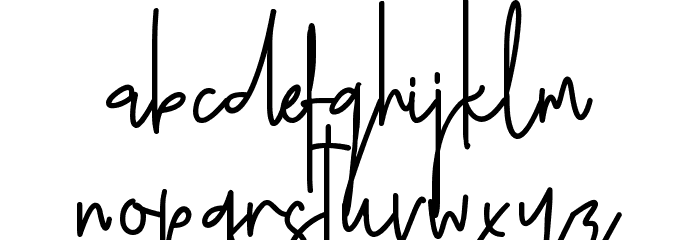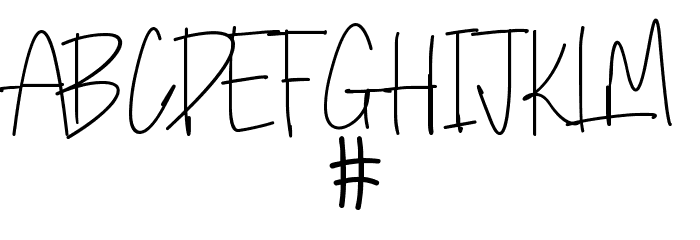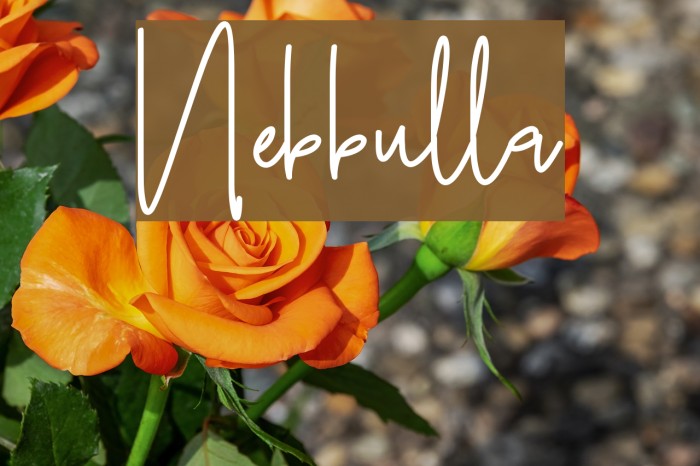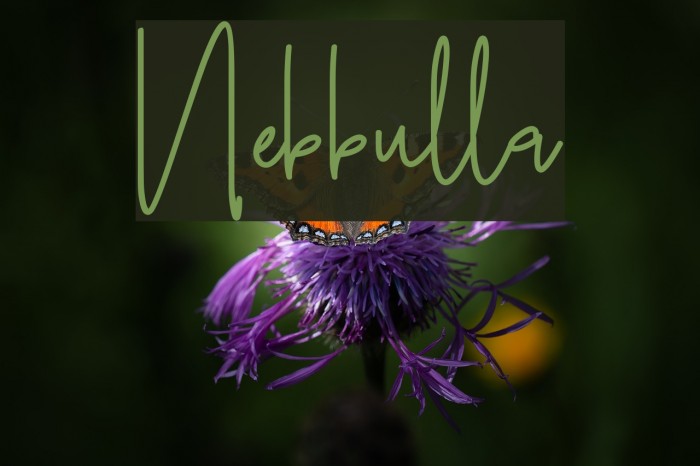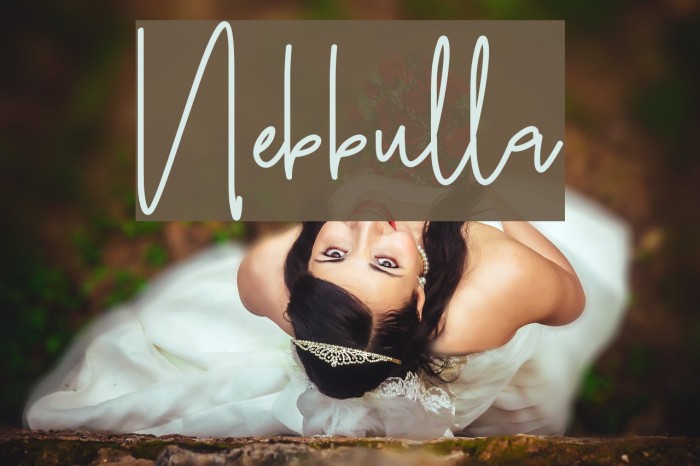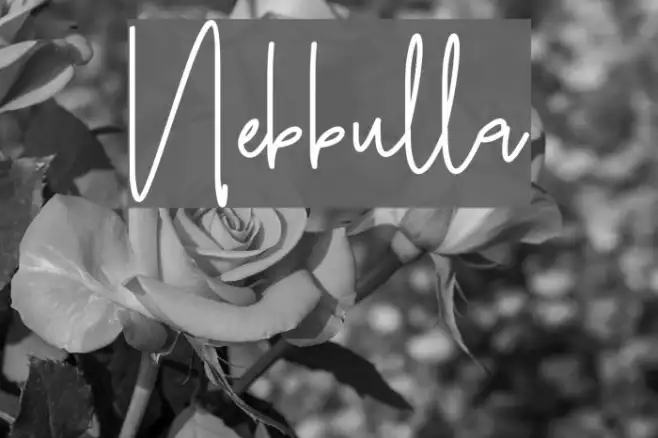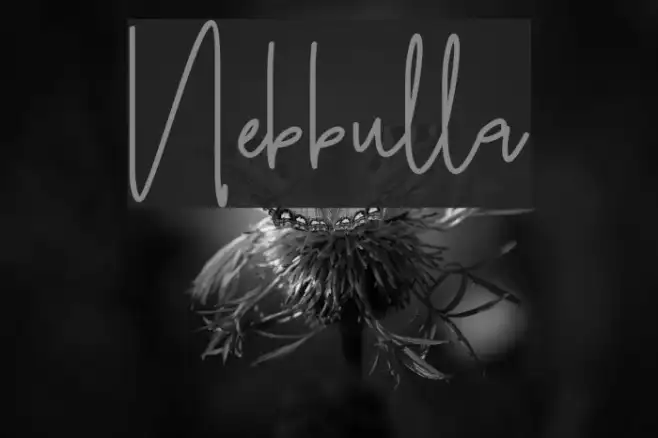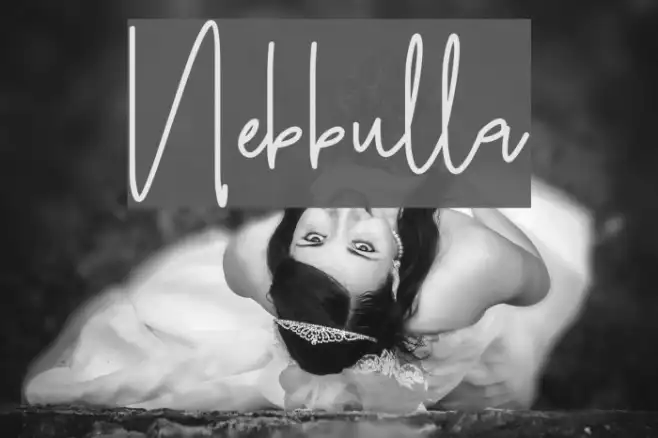
Nebbulla Font
This font features a playful and casual handwritten style, characterized by its loose and flowing strokes. The letters are tall and narrow, with a slight slant that adds to the informal and dynamic feel. The uppercase and lowercase letters are distinct, with the uppercase being more structured while the lowercase maintains a more whimsical appearance. The numerals and special characters follow the same playful aesthetic, making the font suitable for creative and informal projects. The overall look is modern and artistic, perfect for capturing attention with its unique charm.
A playful, handwritten font with tall, narrow letters and a casual, dynamic style.
- Proposed Projects: Ideal for greeting cards, invitations, personal branding, and creative projects that require a personal touch.
- Use Case: Logos, Headlines, Creative projects